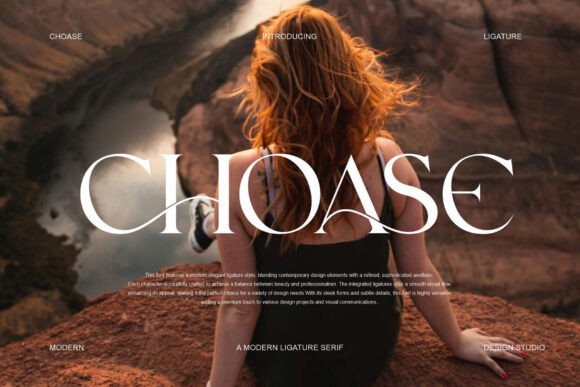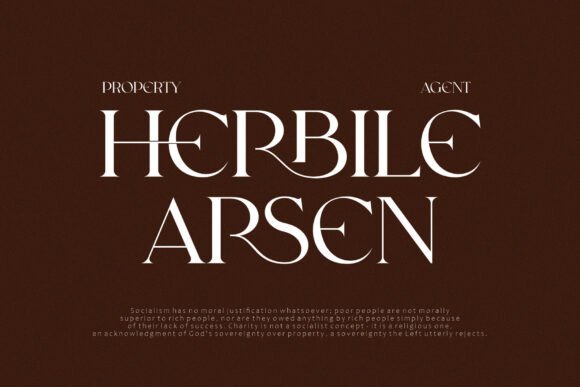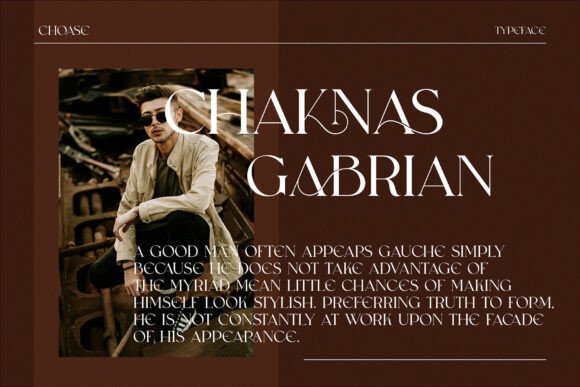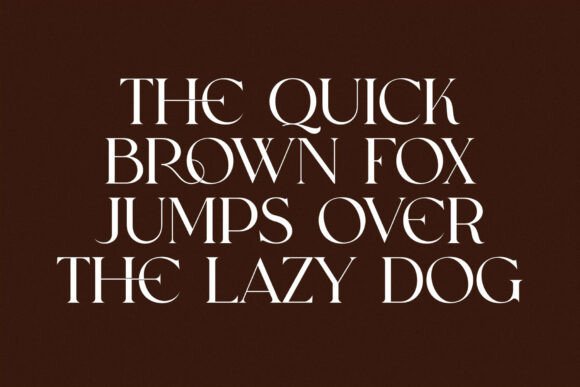
Choase Font: Elegant Serif Ligature for Modern Branding & Logo Design
About the Choase Font
From logos to headlines, the Choase Font is the perfect choice for making a lasting impression. Choase is an elegant ligature serif modern font that evokes the beauty of fresh blooms and timeless elegance. With its bold yet refined ligatures, Choase stands out as a sophisticated and feminine typeface. Perfect for upscale designs, whether for florals, fashion, or high-end branding, Choase pairs the charm of classic serif styles with a modern twist. Every letter feels intentional, with a soft and graceful presence that elevates any project it touches.
Choase Font Usage Examples